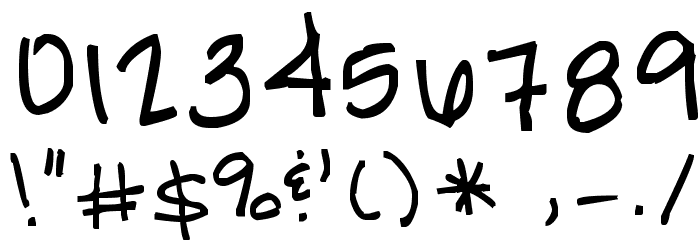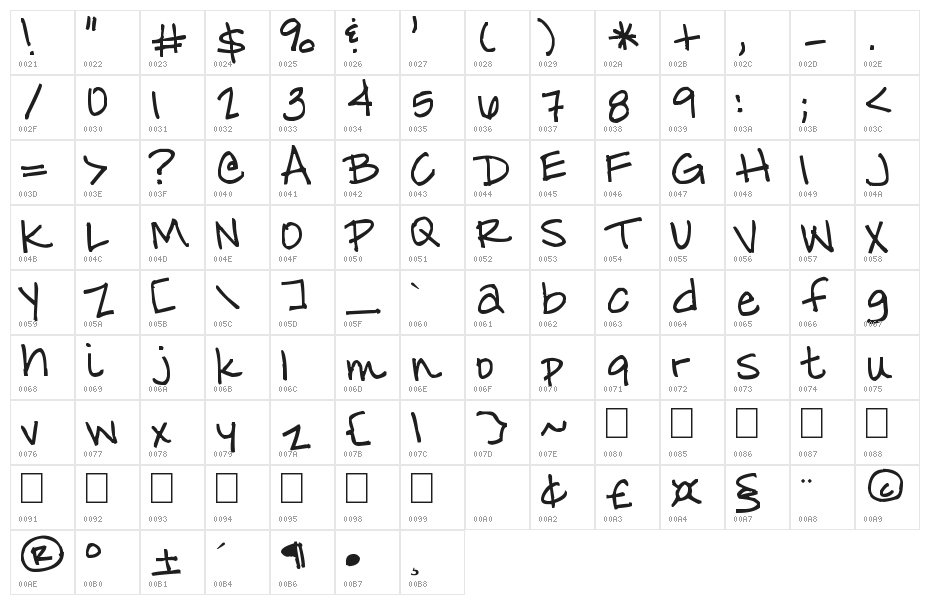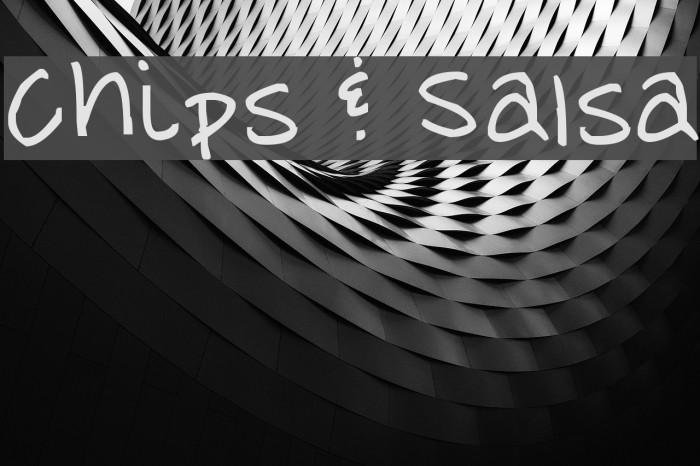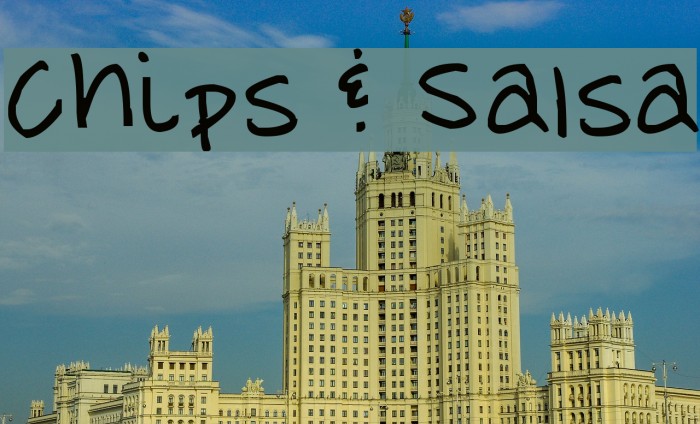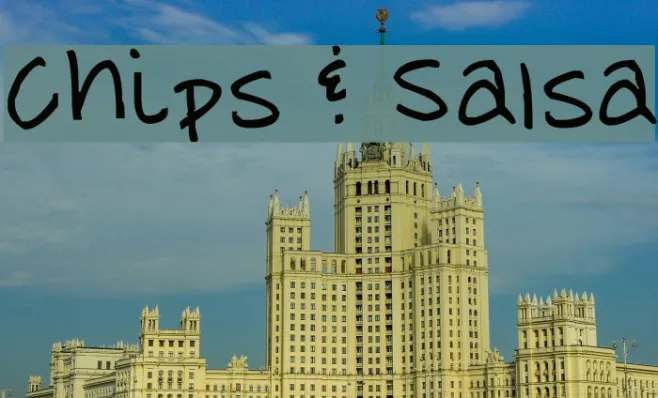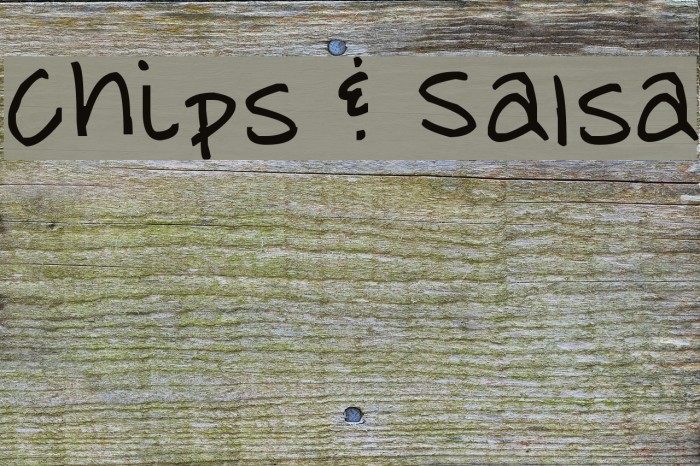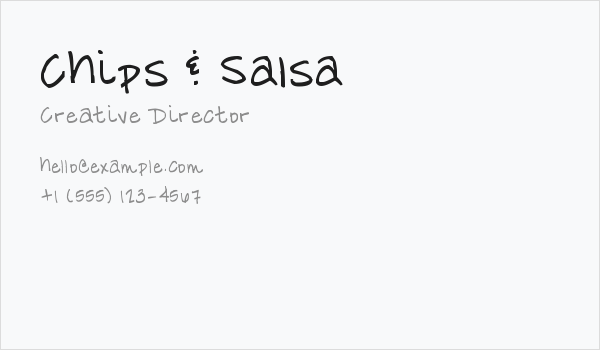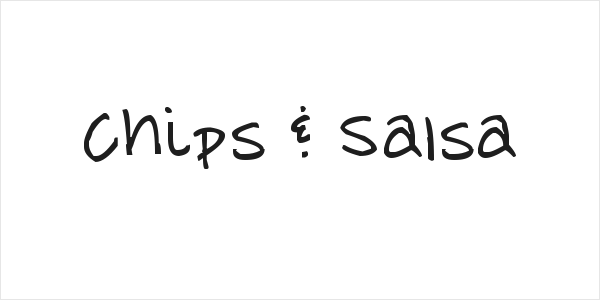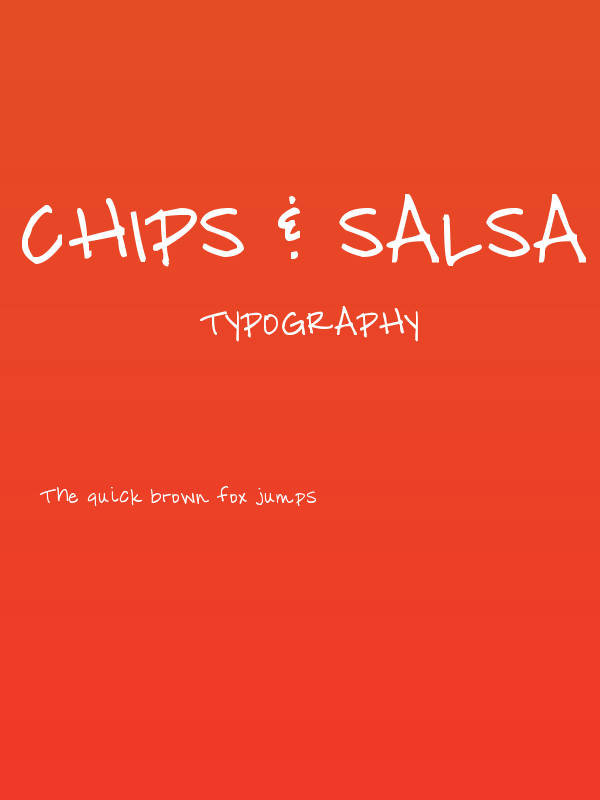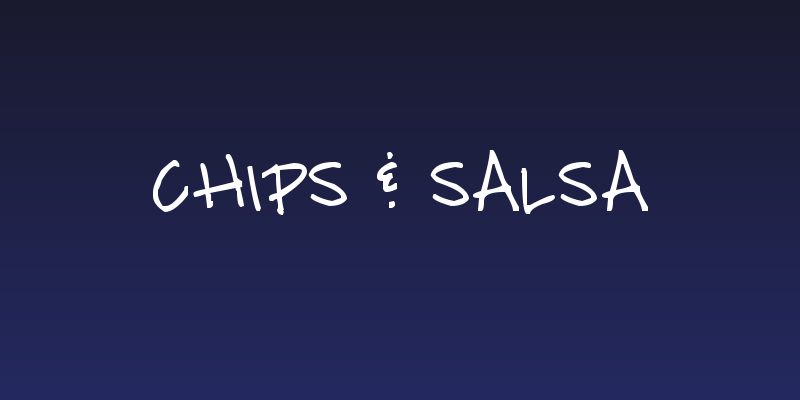
Chips & Salsa Font
Chips & Salsa Description
This font exudes a playful and casual handwritten style, characterized by its loose and informal strokes. The letters are slightly slanted, giving it a dynamic and lively appearance. The uppercase and lowercase letters maintain a consistent flow, while the numbers and special characters complement the overall aesthetic. The strokes vary in thickness, adding a touch of spontaneity and charm. This font is perfect for projects that require a personal and approachable touch, such as invitations, greeting cards, or playful branding.
| Use Case | Headlines, Informal text, Personal projects |
| Proposed Projects | Ideal for greeting cards, playful branding, casual invitations, and personal projects. |